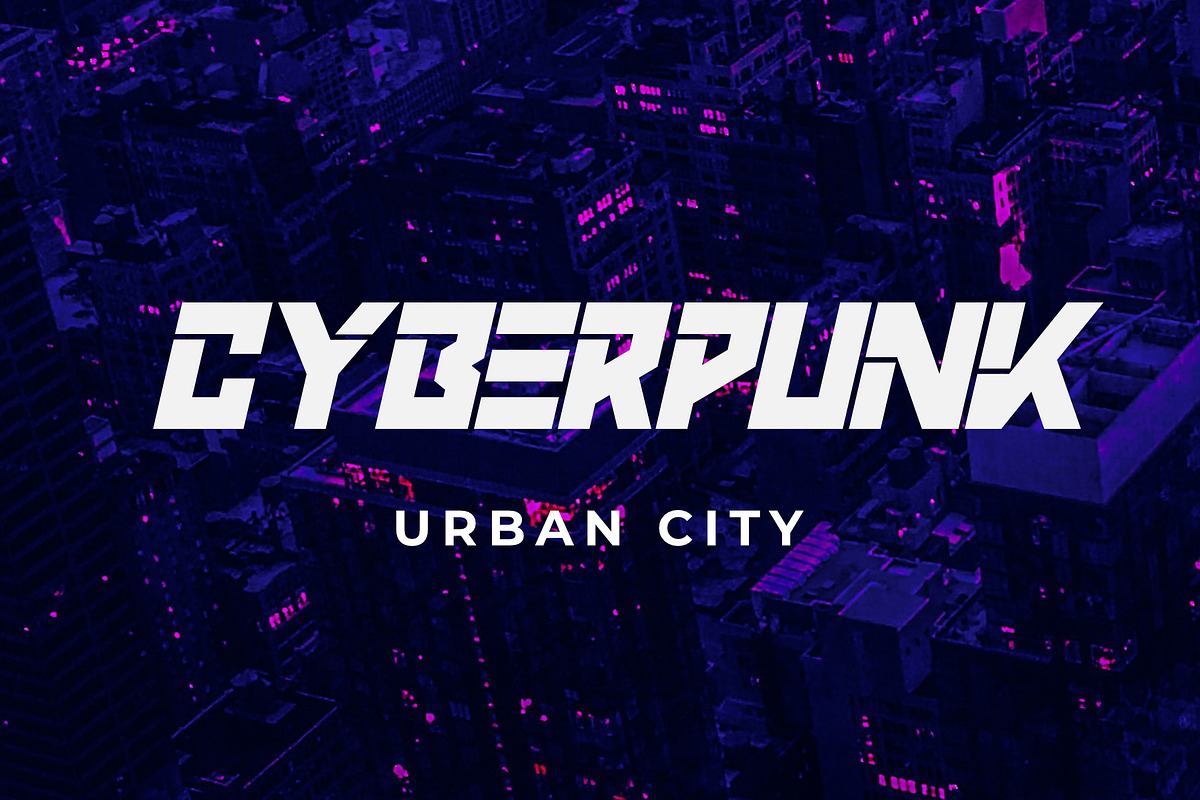
Sans Serif Fonts Bold Tracke Free Download
The Sans Serif Fonts Bold Tracke Free Download is a sleek and modern sans-serif typeface with bold, clean lines, perfect for making strong, impactful statements in your designs. Ideal for creating logos, headlines, posters, websites, and branding materials, this font ensures your message is delivered with clarity and style. Please note, for commercial use, a license must be purchased. You can download it for free for testing purposes.
With its bold weight and contemporary design, the Sans Serif Fonts Bold Tracke Free Download is ideal for projects that require a strong, modern look. Whether you're designing for a corporate brand, creating advertisements, or working on digital content, this font will give your work a professional and sleek appearance.